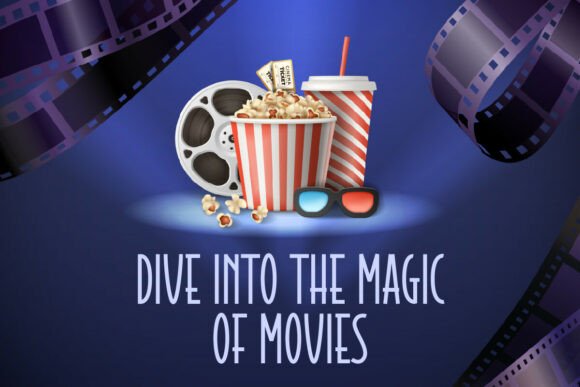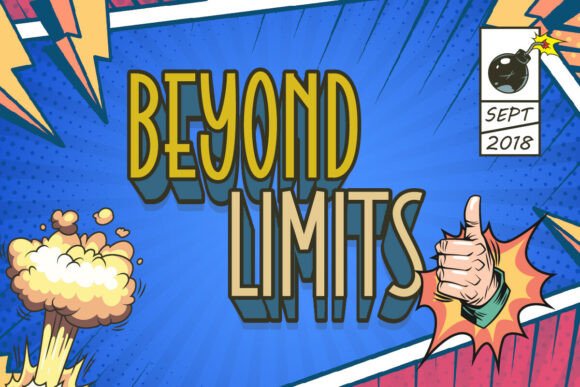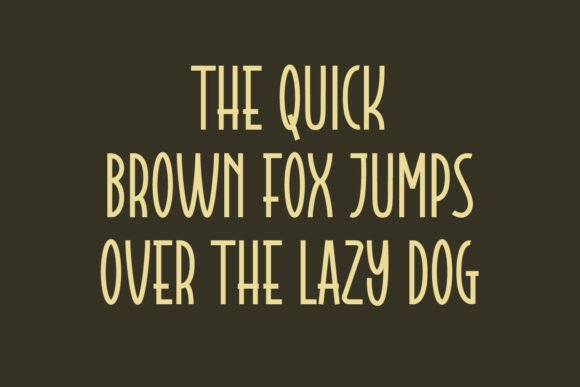
Introduction to Hero Legends Font
Remember the thrill of creating a comic book cover or designing a superhero poster as a kid? The rush of imagination, the burst of color, and the sense of heroism that comes with it? As designers, we often strive to recapture that magic in our creative projects. And now, we’re excited to introduce you to the perfect tool to do just that – the Hero Legends Font.
Key Features of Hero Legends Font
• Includes 5 unique font styles with varying levels of boldness and elegance
Honest Review: Hero Legends Font
I recently came across the Hero Legends Font, and I must say, it’s been a game-changer for my creative projects. As a designer, I’m always on the lookout for high-quality design resources that can elevate my work, and this font definitely delivers.
What works well is the font’s versatility. It’s perfect for creating bold, eye-catching headings, and the transparent background makes it easy to use in any design scenario. The font’s modern aesthetic is also a major plus, making it suitable for a wide range of creative projects.
What I Like:
• ✨ High-quality design with a modern aesthetic
• ✨ Versatile font suitable for various creative projects
What I Don’t Like:
• ⚠️ Limited font weights available (only 2-3 options)
• ⚠️ May not be suitable for very formal or traditional designs
Overall, I’m thoroughly impressed with the Hero Legends Font. It’s a valuable resource for any designer looking to add some flair to their creative projects. While it may have some limitations, the benefits far outweigh the drawbacks.
Hero Legends Font
Tips for Getting the Most Out of Hero Legends Font
To get the most out of Hero Legends Font, try experimenting with different font sizes, colors, and combinations to create unique and eye-catching designs.
Hero Legends Font is perfect for:
• Creating motivational posters and quotes
• Designing social media graphics and ads
• Adding a touch of elegance to presentations and documents